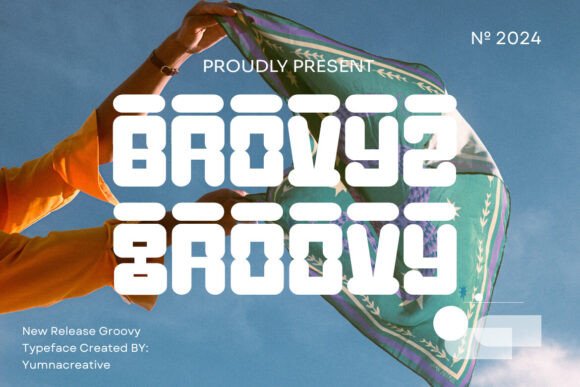
The Groovy Font That Stole My Heart: A Deep Dive into Brovyz Groovy
This bold, decorative font has a playful twist that instantly elevates any text to a whole new level. Each letter has a unique line above it, adding a fun and stylish touch that’s perfect for eye-catching titles or creative designs.
- ✅ Unique and playful design that’s sure to turn heads
- ✨ Perfect for titles, headings, and creative designs
- 💥 Great for crafting a distinctive brand voice or aesthetic
- 🎉 Easy to read and understand, despite its decorative nature
A Few Quirks to Consider
While Brovyz Groovy is an amazing font, it’s not without its limitations. For example:
- 🤔 It can be a bit overpowering for body text or longer paragraphs
- ⚠️ Some of the unique lines above each letter may not render perfectly in all platforms or devices
The Story Behind Brovyz Groovy
Brovyz Groovy was designed with one goal in mind: to create a font that’s fun, playful, and full of personality. The designer wanted to craft a font that would add a touch of whimsy to any design project, while still being easy to read and understand.
Q: What makes Brovyz Groovy so special?
A: Brovyz Groovy’s unique lines above each letter add a fun and stylish touch that’s hard to find in other fonts.
Q: Is Brovyz Groovy easy to read?
A: Despite its decorative nature, Brovyz Groovy is surprisingly easy to read and understand, making it perfect for titles and headings.